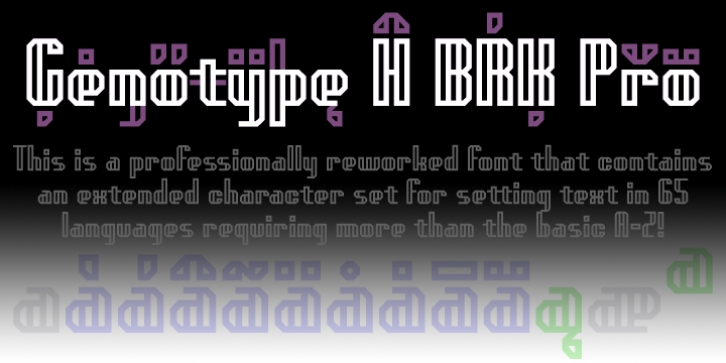
Genotype BRK Pro was designed by Roger Nelsson, Brian Kent and published by CheapProFonts. Genotype BRK Pro contains 2 styles and family package options.
A stylistic and square outline font suitable for headlines and logos.
The original font contained no diacritics at all, so I have designed these to match. I also made the descenders on 'g/j/p/q/y' a bit longer - so they would balance better with the letters with diacritics below the letter...
I redesigned the 't', but have included the original 't' as an alternate, available via your programs' glyph palette or using the OpenType functions 'Stylistic Alternates'/'ss01'.
Genotype S BRK Pro is the perfect companion for Genotype H BRK Pro (The H stands for Hollow and the S stands for Solid). Can be used as a fill for its companion (using layers), but is also quite a usable font on its own.
ALL fonts from CheapProFonts have very extensive language support: They contain some unusual diacritic letters (some of which are contained in the Latin Extended-B Unicode block) supporting: Cornish, Filipino (Tagalog), Guarani, Luxembourgian, Malagasy, Romanian, Ulithian and Welsh. They also contain all glyphs in the Latin Extended-A Unicode block (which among others cover the Central European and Baltic areas) supporting: Afrikaans, Belarusian (Lacinka), Bosnian, Catalan, Chichewa, Croatian, Czech, Dutch, Esperanto, Greenlandic, Hungarian, Kashubian, Kurdish (Kurmanji), Latvian, Lithuanian, Maltese, Maori, Polish, Saami (Inari), Saami (North), Serbian (latin), Slovak(ian), Slovene, Sorbian (Lower), Sorbian (Upper), Turkish and Turkmen. And they of course contain all the usual 'western' glyphs supporting: Albanian, Basque, Breton, Chamorro, Danish, Estonian, Faroese, Finnish, French, Frisian, Galican, German, Icelandic, Indonesian, Irish (Gaelic), Italian, Northern Sotho, Norwegian, Occitan, Portuguese, Rhaeto-Romance, Sami (Lule), Sami (South), Scots (Gaelic), Spanish, Swedish, Tswana, Walloon and Yapese.